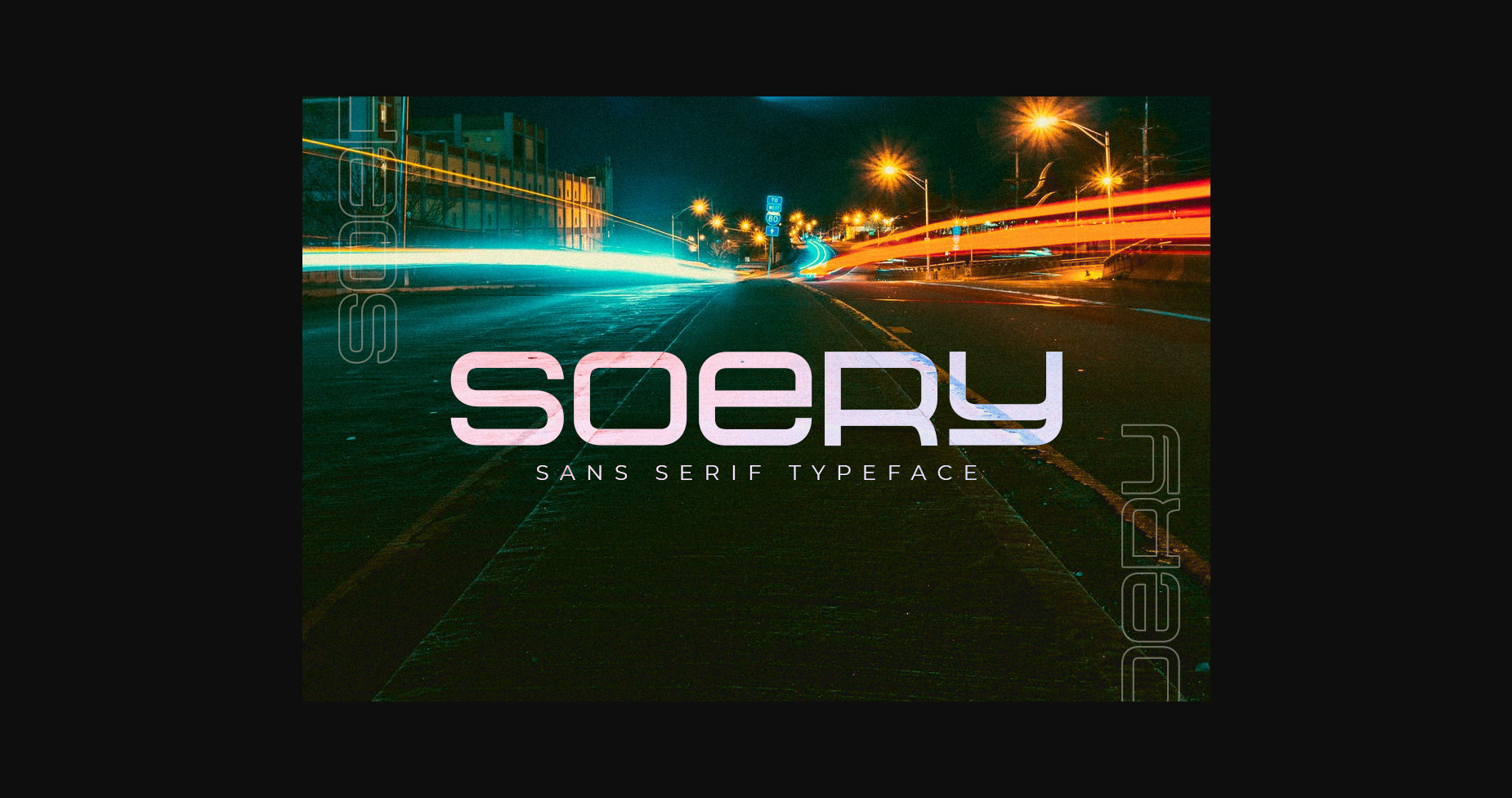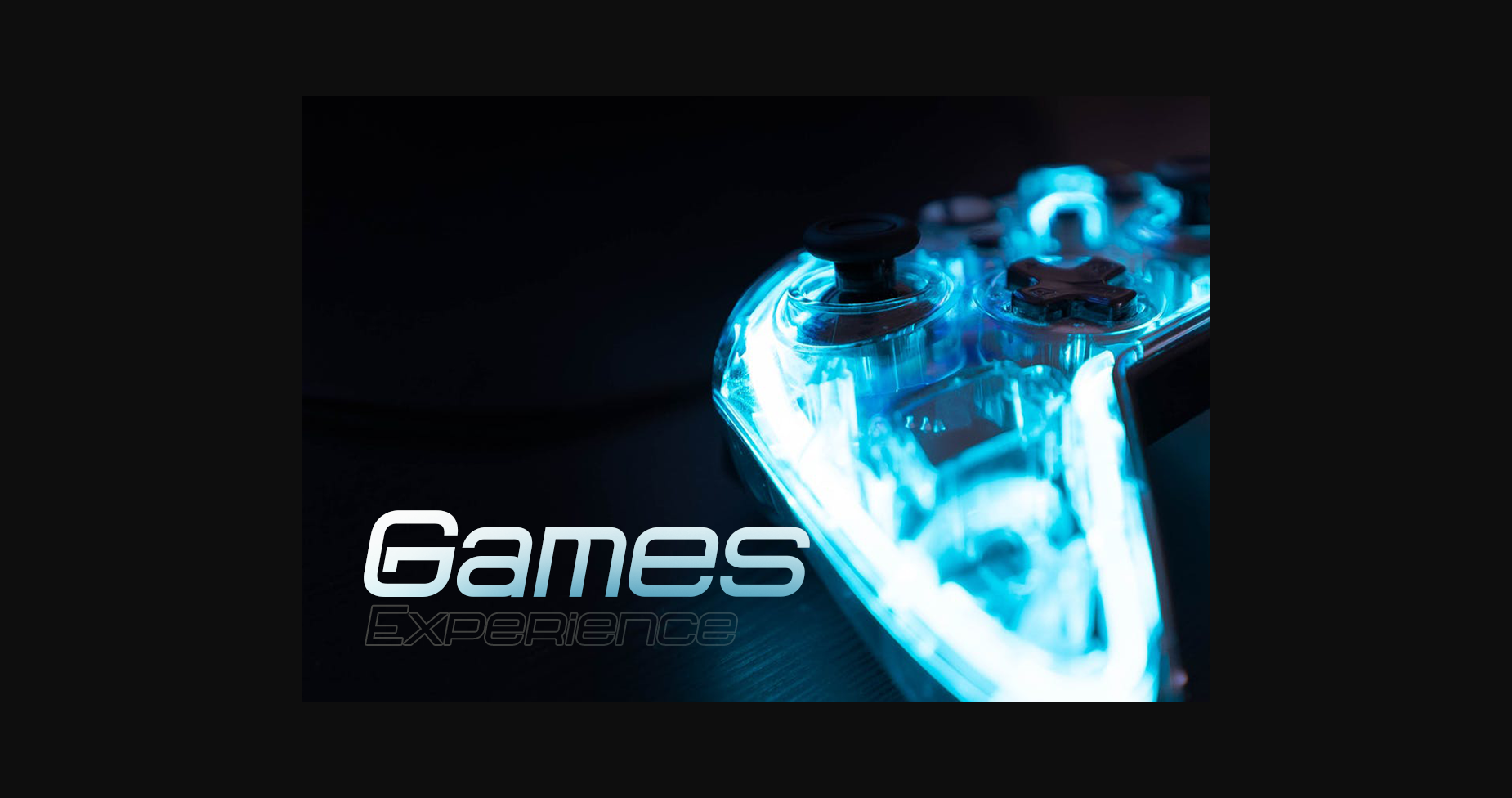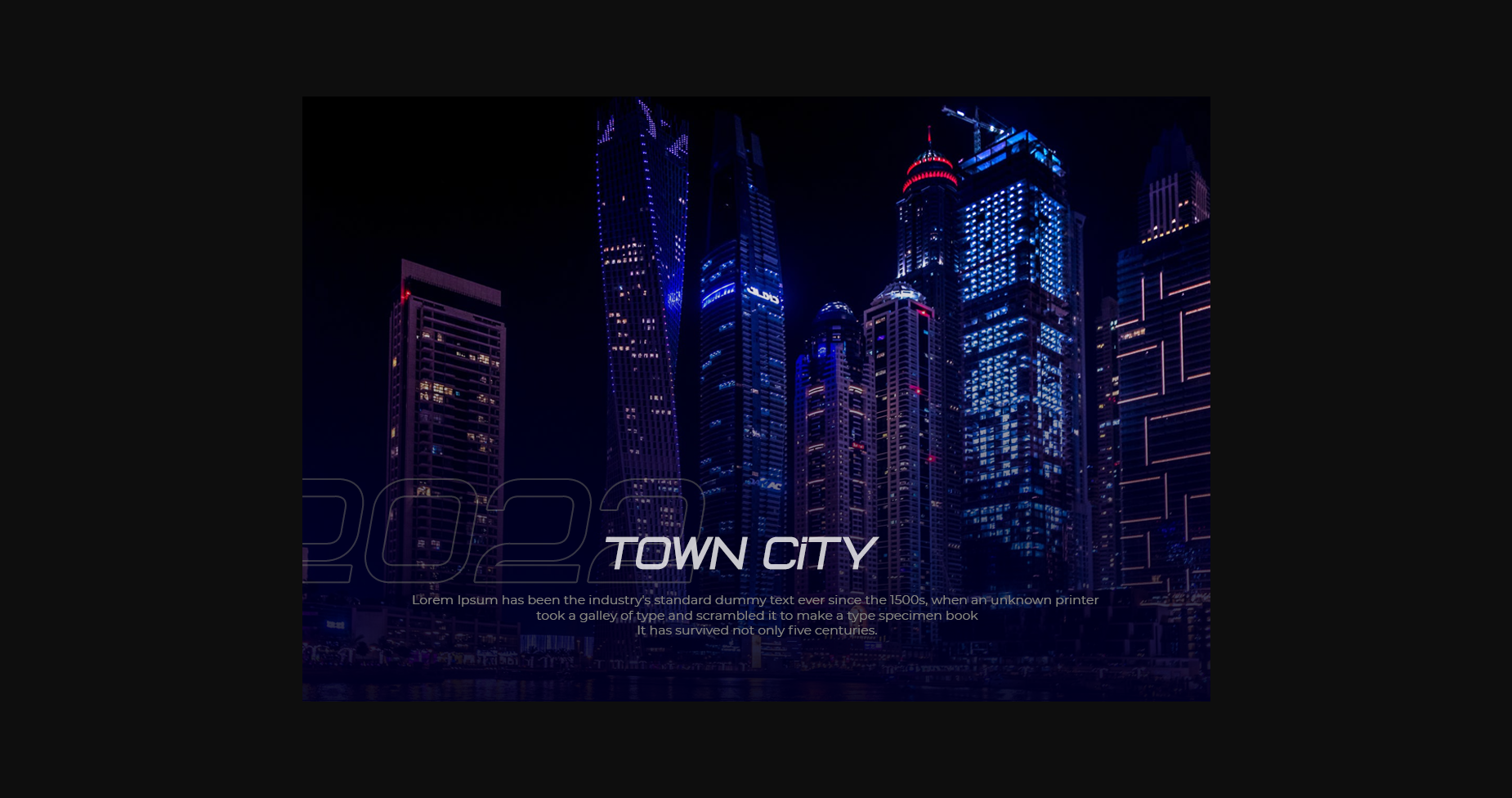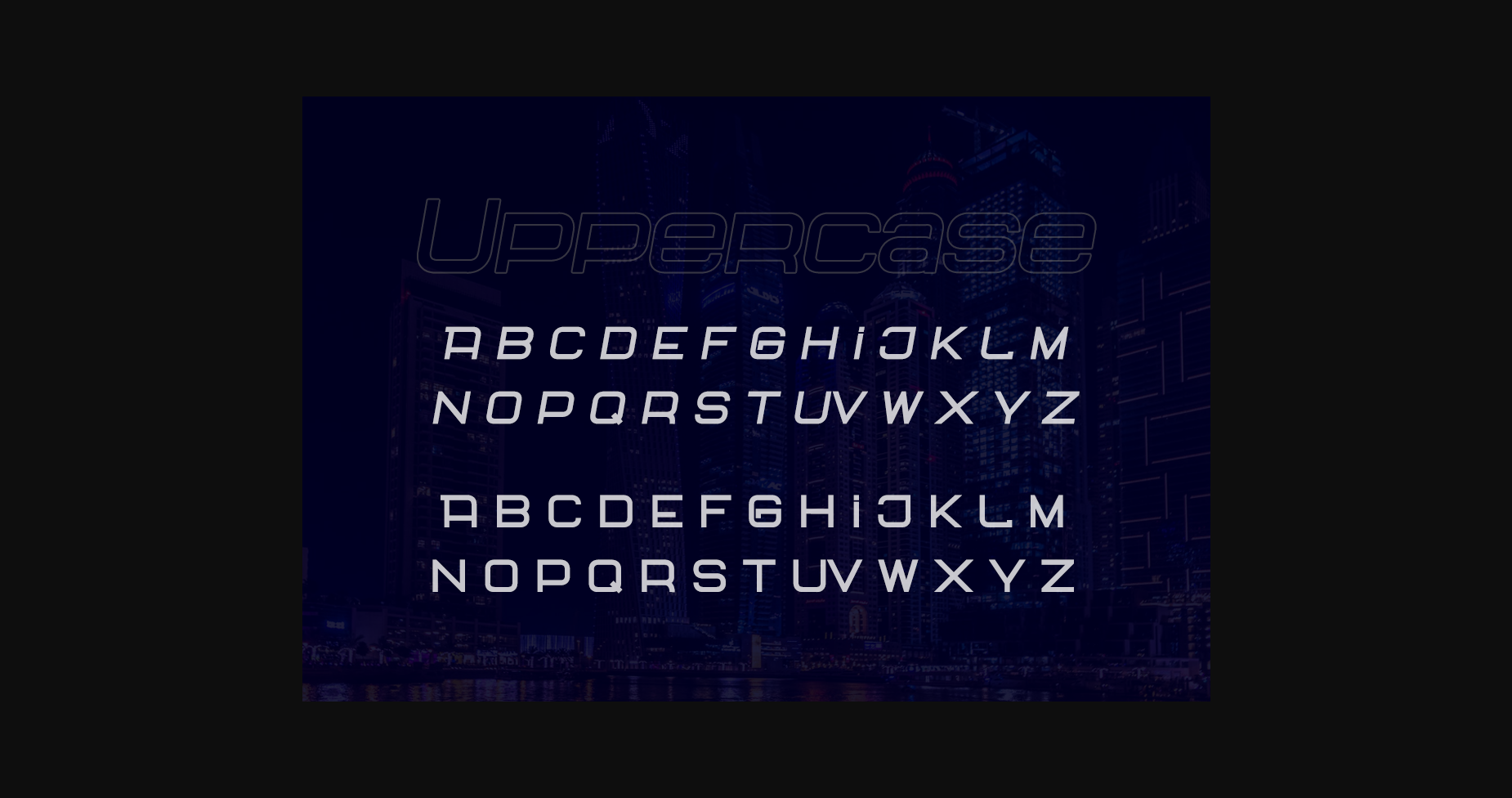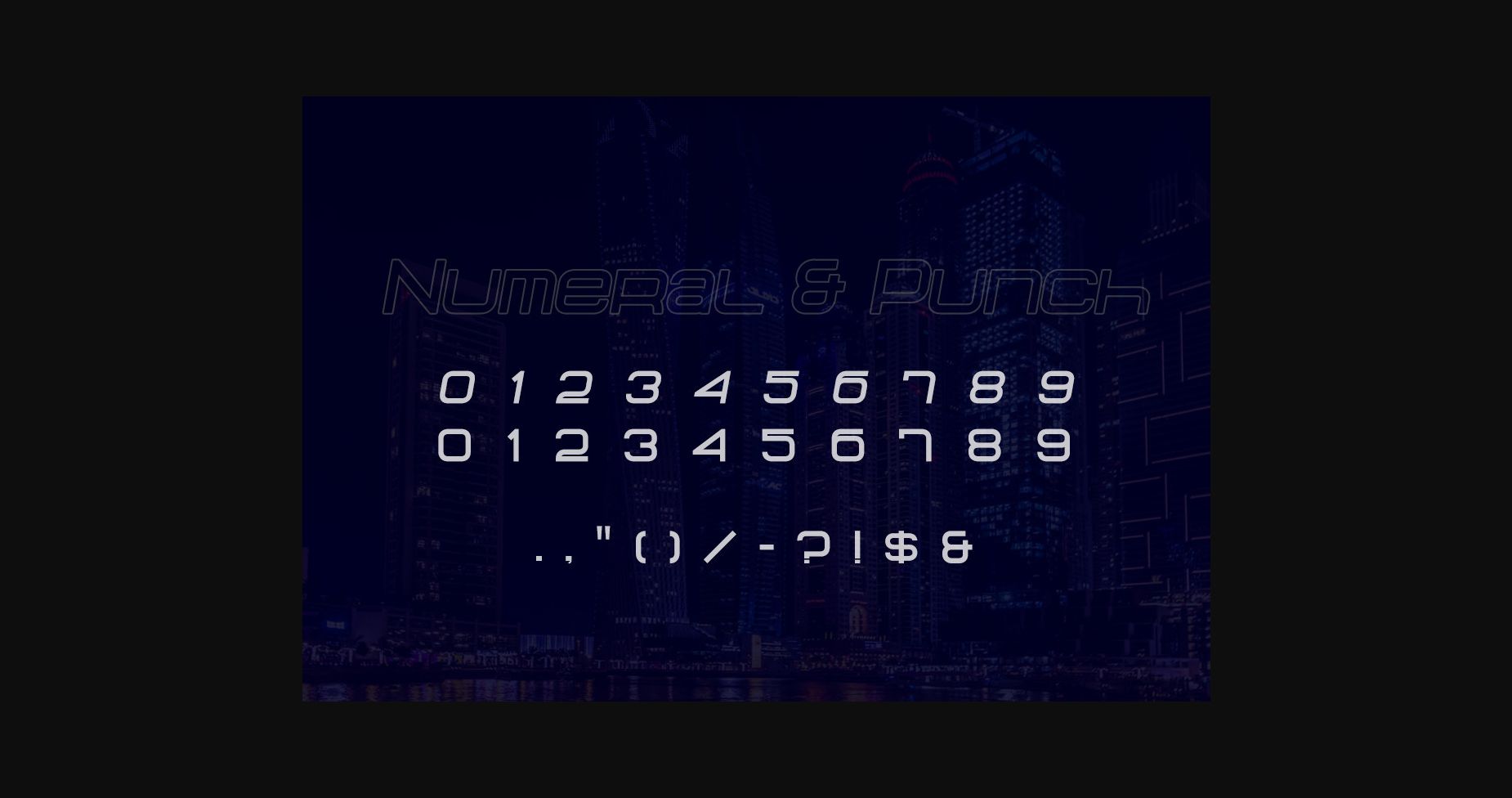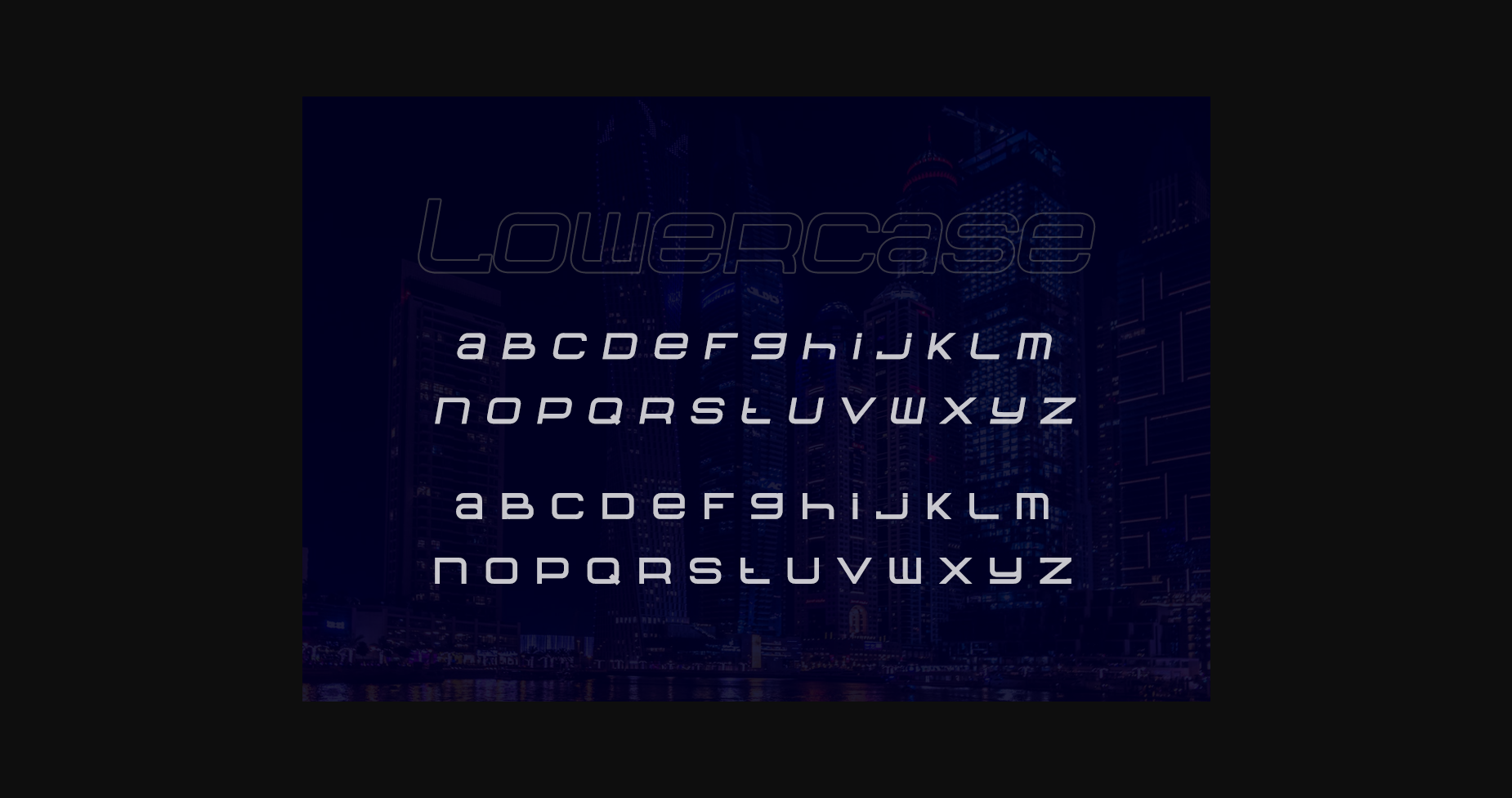
Soery is a cool, modern and robotic styled display font. It works great for various designs that require a neat, futuristic touch. Use this font for your designs and explore its endless possibilities.